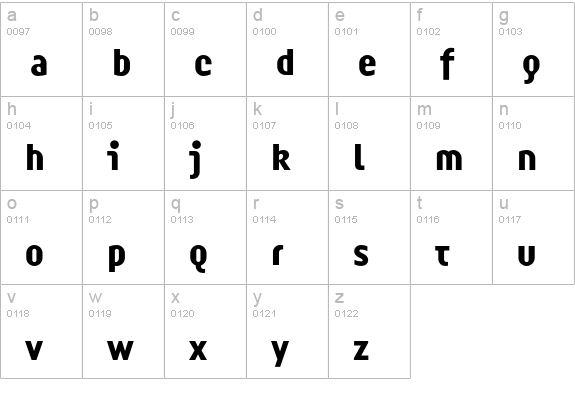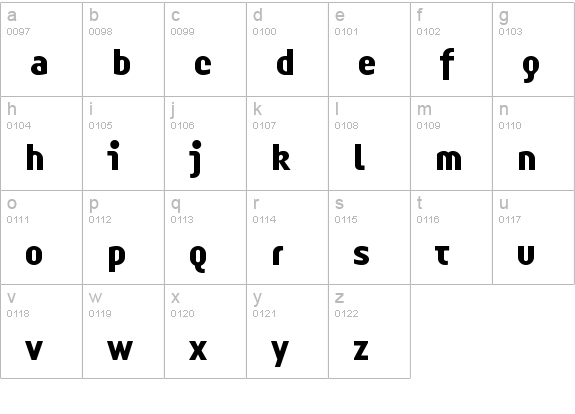
OgilveLFBold font is a versatile and modern typeface that exudes confidence and sophistication. Its bold and expressive design makes it perfect for headlines, titles, and other prominent text in various projects. The clean lines and sharp edges of OgilveLFBold give it a sleek and contemporary look that is sure to make a statement. What sets OgilveLFBold font apart is that it is available for free download at FontsMarket.com. This means that you can easily access and use this high-quality font in your designs without any cost, making it a valuable addition to your font library. Whether you're working on a branding project, advertising campaign, or any other creative endeavor, OgilveLFBold font is a reliable choice that will elevate your design and leave a lasting impression.